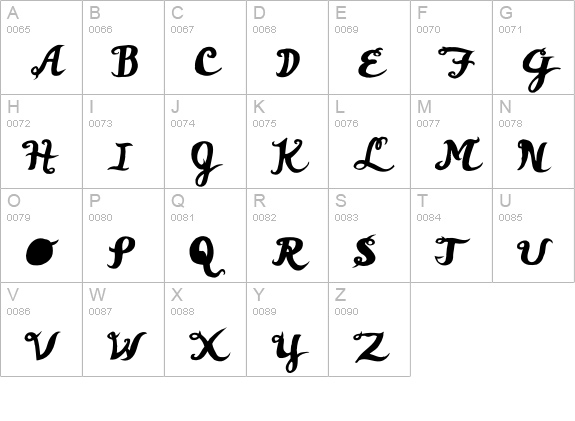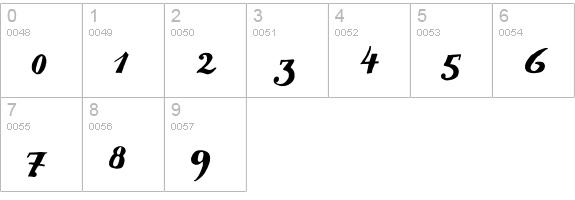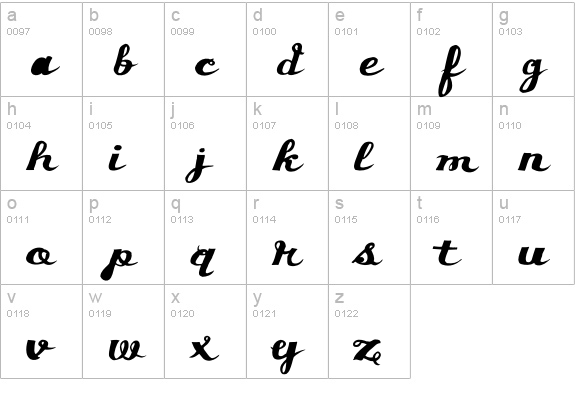
AsswipeDeluxxe Font Details
Introducing AsswipeDeluxxe font, a captivating and versatile typeface that will bring a touch of modern edginess to your design projects. This unique font features a playful yet sophisticated style, with sharp edges and bold strokes that make it stand out from the crowd. Perfect for branding, logos, headlines, and more, AsswipeDeluxxe font is sure to make a bold statement. What's even better is that AsswipeDeluxxe font is available for free download at FontsMarket.com. Yes, you read that right - this high-quality font can be yours at no cost, allowing you to unleash your creativity without breaking the bank. Don't miss out on this amazing opportunity to add a touch of flair to your designs with AsswipeDeluxxe font. Download it now and let your imagination run wild!